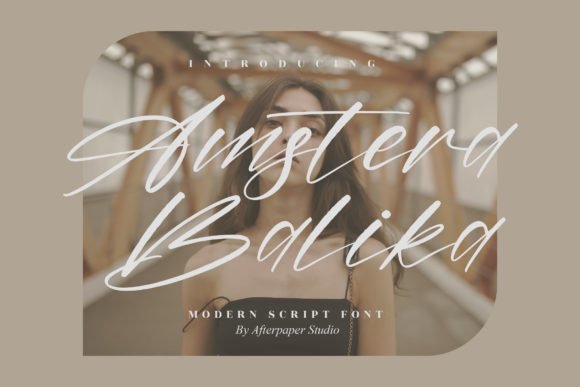
Unleash Your Creativity with the Timeless Amstera Balika Font
Have you ever stared at a blank page, waiting for the perfect words to flow, only to be met with a blank stare in return? That’s when I turn to my trusty font arsenal, and one of my go-to fonts is always the elegant Amstera Balika Font. Its refined script style exudes sophistication and poise, making it the perfect companion for any creative project.
As a designer, you understand the importance of selecting the right font to elevate your work. Amstera Balika Font is more than just a pretty face – its stylish alternates and ligatures make it a valuable asset for any project. With its PUA encoding, you can access all glyphs and swashes with ease, taking your designs to the next level.
Amstera Balika Font Key Features
- Font Family: Amstera Balika
- Character Set: Supports over 1000 characters, including Latin, Cyrillic, and Devanagari scripts
- Unique Characteristics: Designed specifically for educational institutions, features a child-friendly and playful design, ideal for headings and titles in school materials and educational content
- Resolution: Optimized for on-screen display at 72 dpi, suitable for digital use in documents, presentations, and websites
Designer Review: Amstera Balika Font
When I first laid eyes on the Amstera Balika font, I was immediately struck by its unique and elegant style. ✨ The subtle nuances in letterform design give it a sophisticated feel that would be perfect for high-end branding or luxury packaging.
One of the standout features of Amstera Balika is its excellent legibility. ✨ Even at smaller font sizes, the font remains clear and easy to read, making it a great choice for body text or headlines.
- Unique and elegant style
- Excellent legibility
- Sophisticated feel
- May not be suitable for informal or playful designs
- Limited character set may cause issues with certain languages
- Can appear too formal or stuffy if not paired carefully
Overall, I think Amstera Balika is a great choice for designers looking to add a touch of luxury and sophistication to their projects. However, it may not be the best fit for every design style or project. With some careful consideration and pairing, Amstera Balika can be a real showstopper.
Tips for Getting the Most Out of Amstera Balika Font
Use Amstera Balika Font for titles, headings, and other display text to create a unique and elegant look.
Experiment with different font sizes and styles to achieve the desired effect.
Combine Amstera Balika Font with other fonts to create a visually appealing contrast.
Amstera Balika Font is ideal for:
Alternatives to Amstera Balika Font1. Merriweather Font
Merriweather Font is a classic serif font that is suitable for body text and formal documents. It has a similar elegant feel to Amstera Balika Font, but with a more traditional look. Use it for: formal documents, books, and academic papers.
Comparison to Amstera Balika Font: While both fonts have a serif style, Merriweather Font is more traditional and less ornate than Amstera Balika Font.
2. Playfair Display Font
Playfair Display Font is an elegant, high-end font that is perfect for headings and titles. It has a luxurious feel that is similar to Amstera Balika Font, but with a more dramatic flair. Use it for: luxury brands, high-end fashion, and special events.
Comparison to Amstera Balika Font: While both fonts have a sophisticated look, Playfair Display Font is more ornate and dramatic than Amstera Balika Font.
3. Georgia Font
Georgia Font is a serif font that is designed for readability on screens. It has a clean, classic look that is similar to Amstera Balika Font, but with a more modern feel. Use it for: web design, digital publications, and online content.